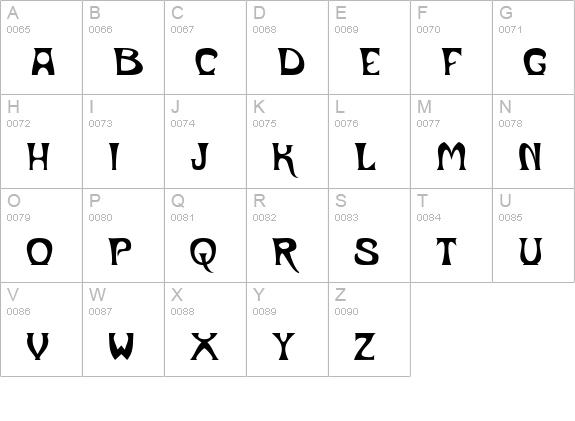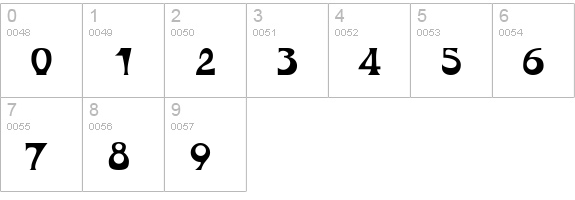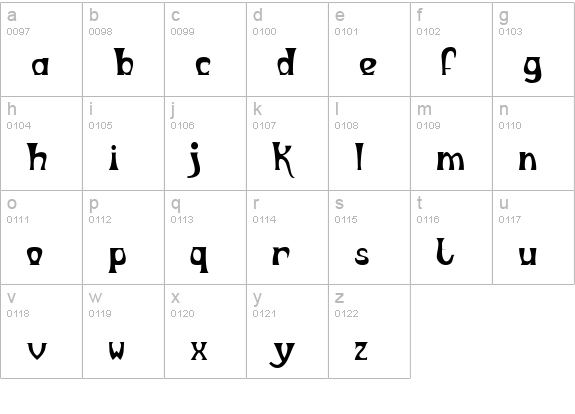
Metropolitain Tryout Font Details
Metropolitain Tryout font is a sophisticated and elegant typeface that exudes a sense of modernity and style. Its sleek lines and sharp angles make it a perfect choice for projects that require a contemporary and refined aesthetic. With its unique design elements and eye-catching appeal, Metropolitain Tryout font is sure to make a statement in any design project. What sets Metropolitain Tryout font apart is not only its striking appearance but also the fact that it is available for free download at FontsMarket.com. This means that you can easily access and use this stunning font in your projects without any cost involved. Whether you're working on a branding campaign, a website design, or any other creative project, Metropolitain Tryout font will add a touch of sophistication and flair that sets your work apart. Download this font today and elevate your designs to new heights with Metropolitain Tryout.